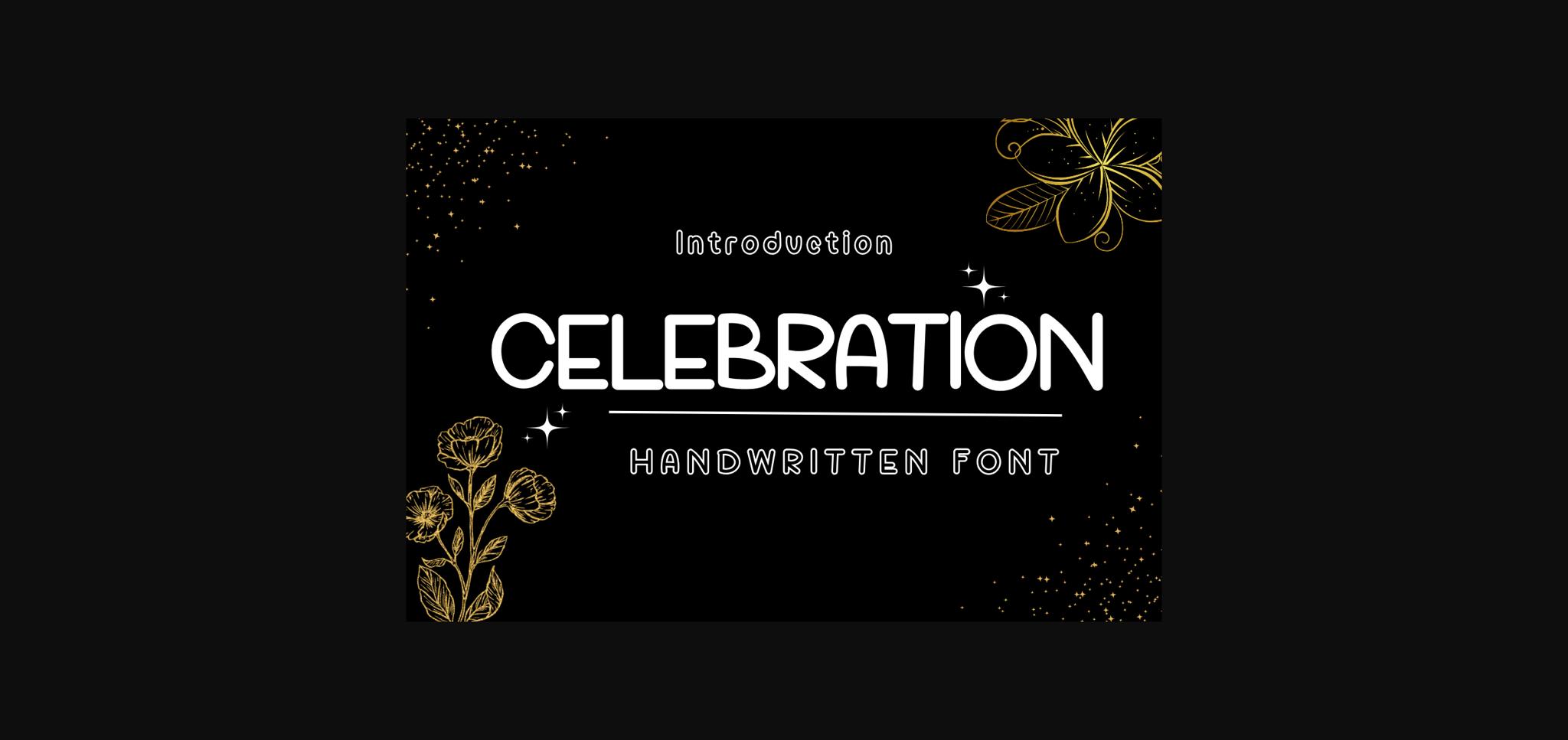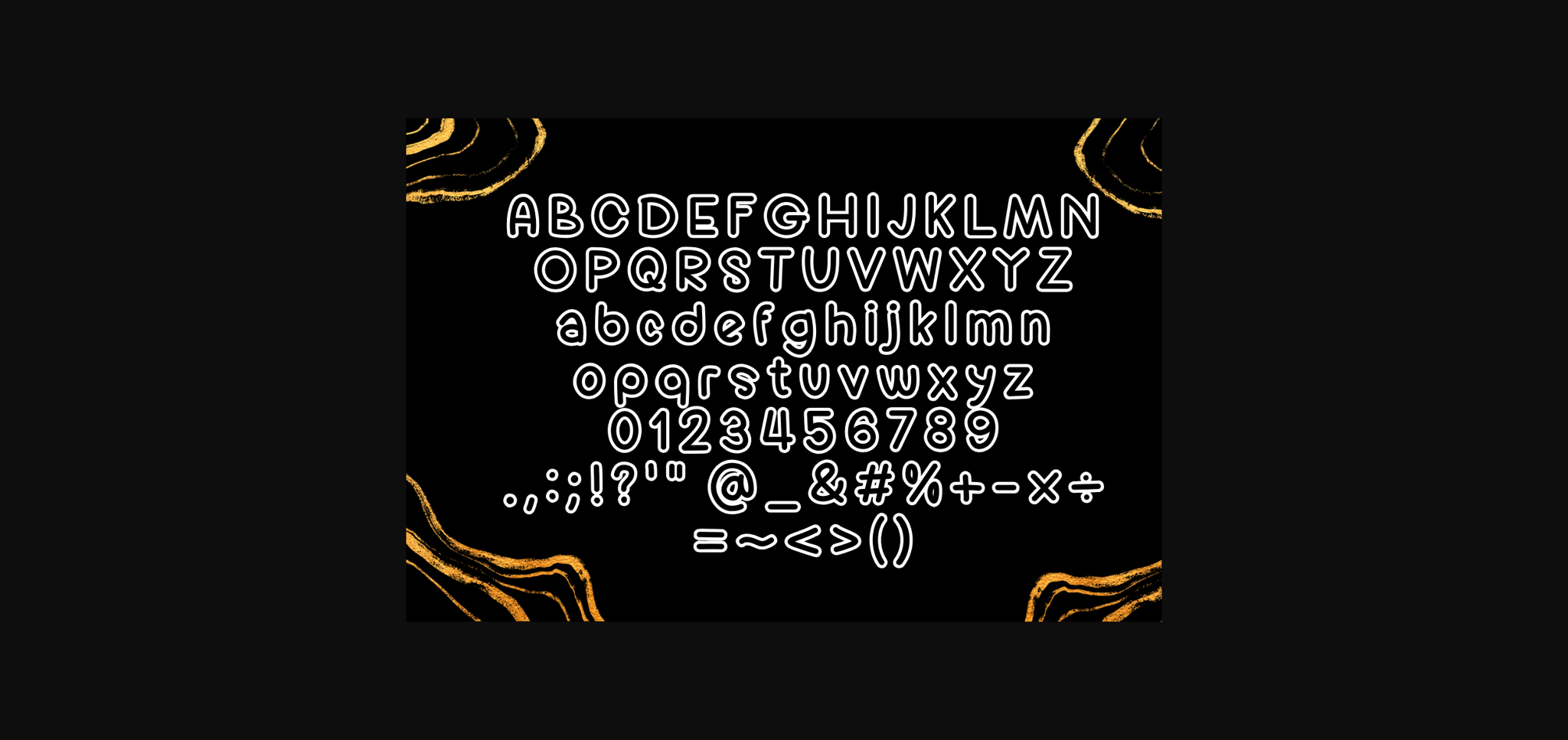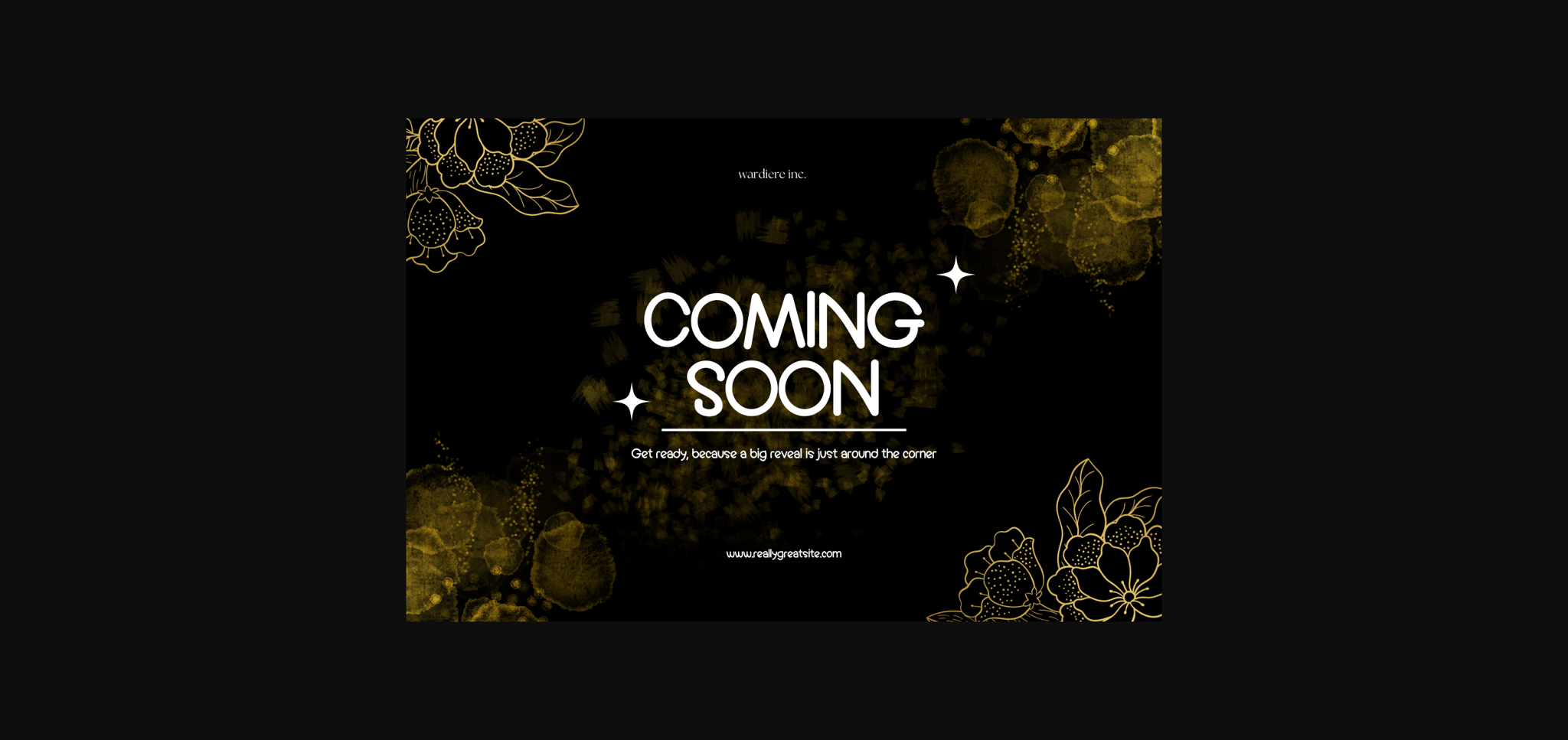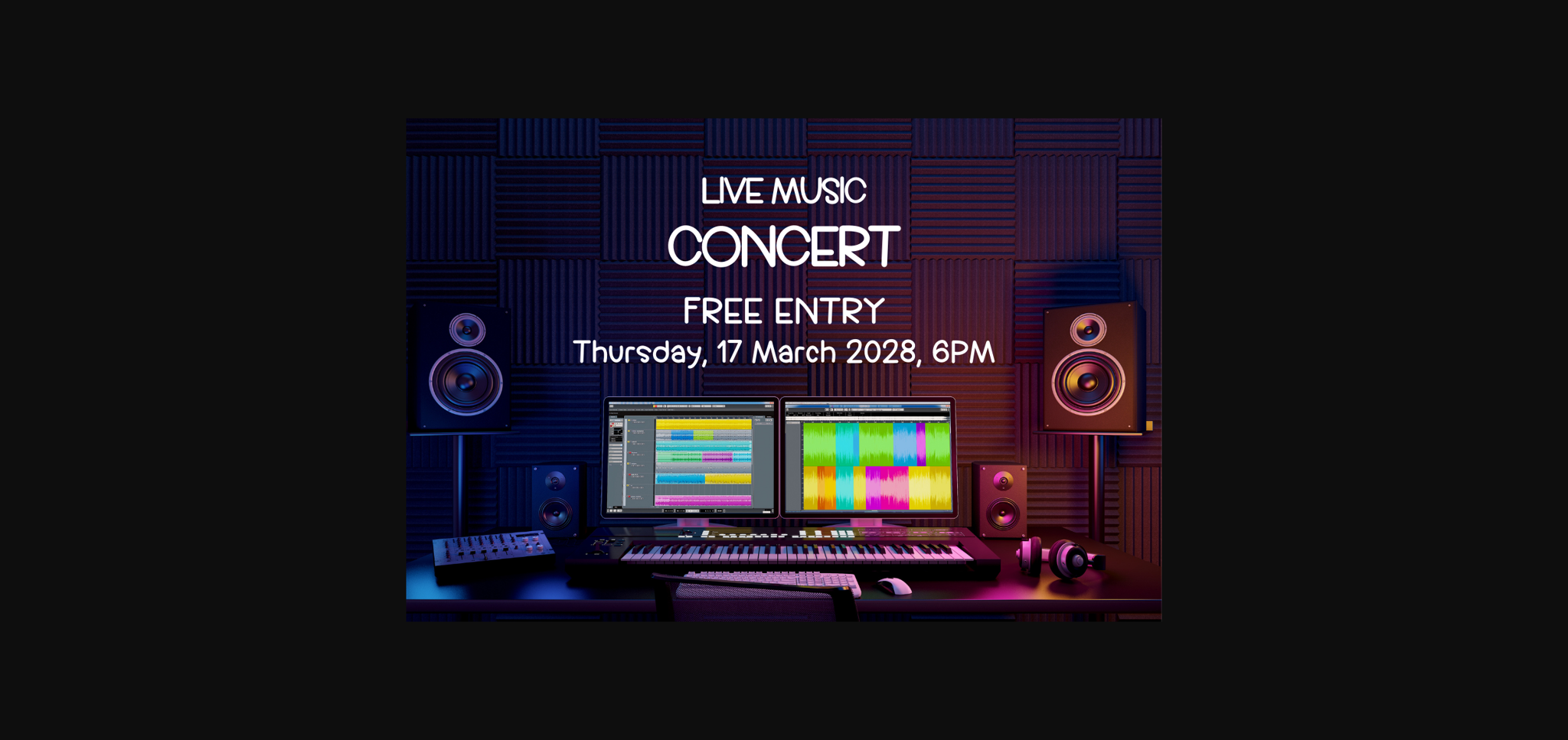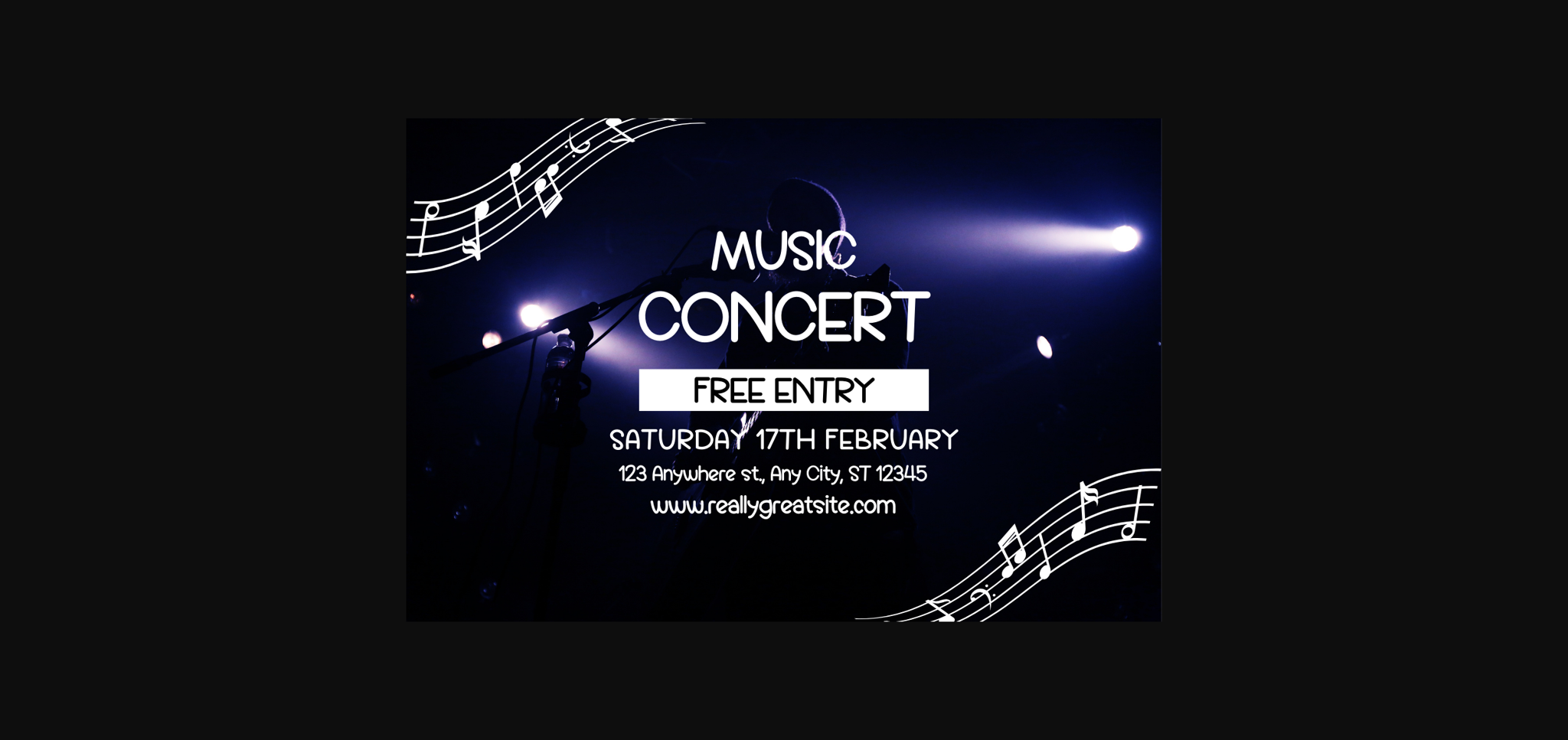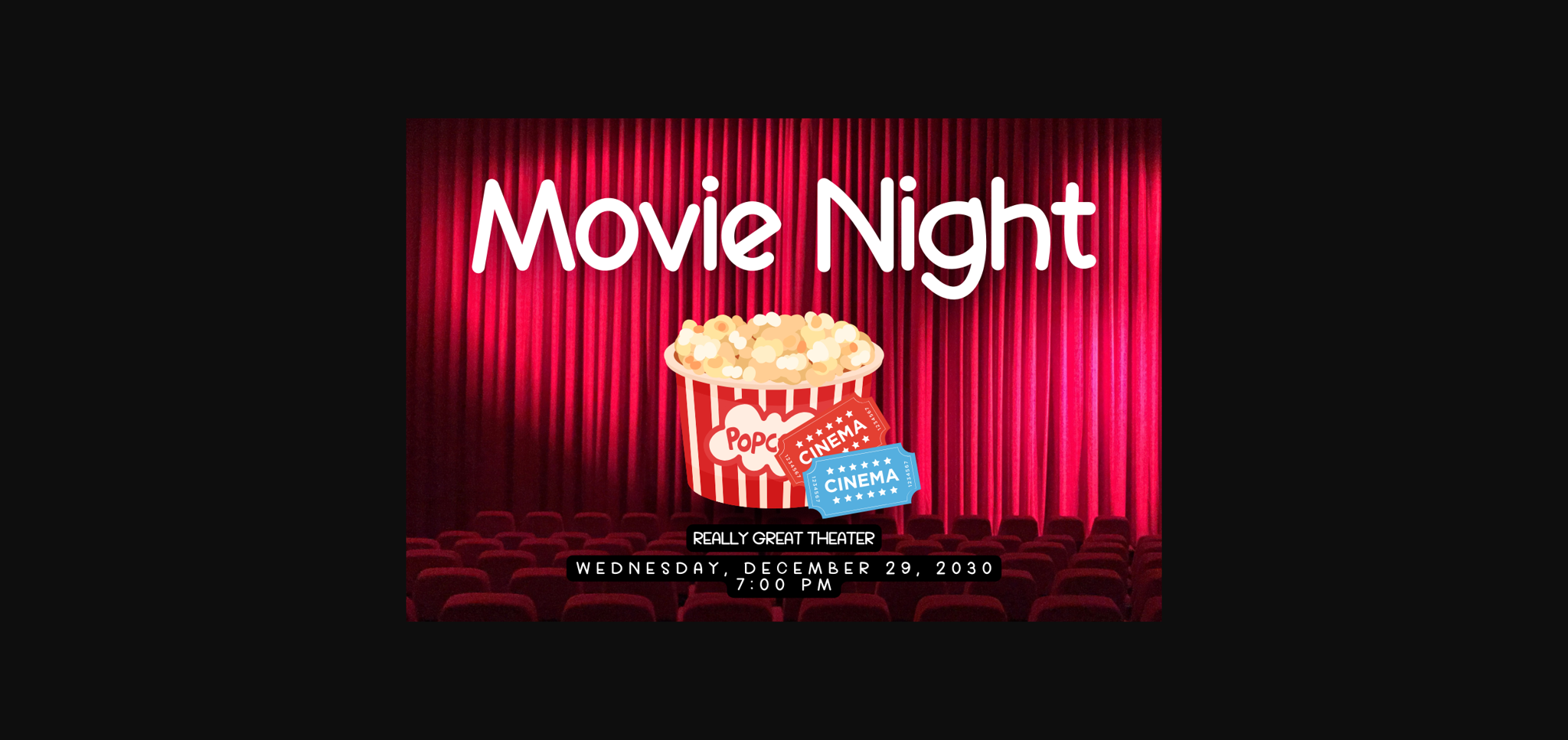
Celebration Font
About Celebration Font
Celebration is a fun and neat sans-serif font. No matter the topic, this font will be a great asset in your font collection.